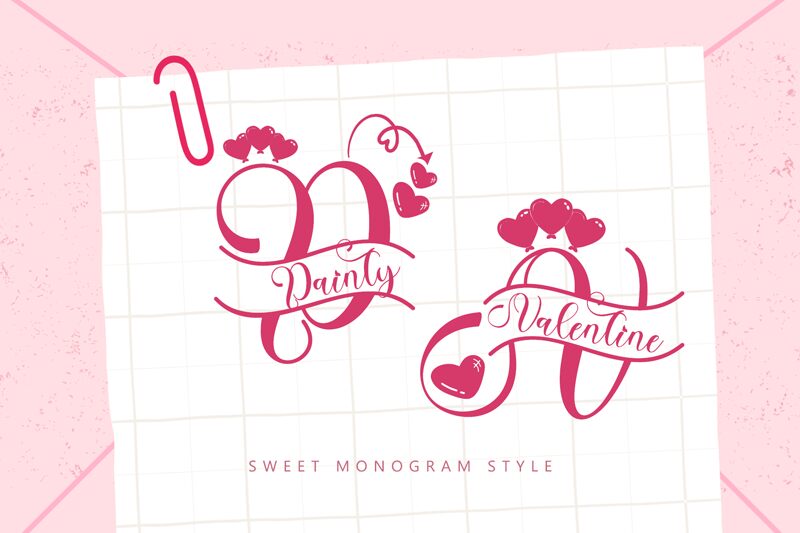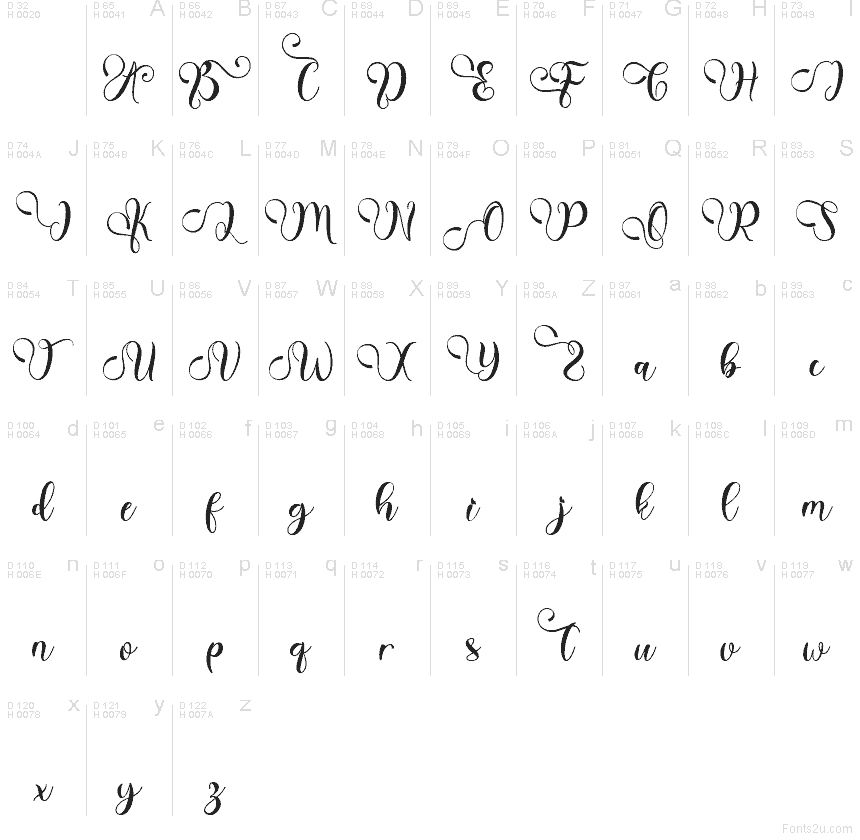
Dainty Valentine
Dainty Valentine font by Yoga Letter is a free holiday calligraphy typeface that wraps every word in a soft, romantic flourish. Loose, looping strokes and airy spacing give it a handwritten feel, like ink brushed across a love note. The swirls are expressive without feeling messy, so your message stays legible while still looking indulgent and special.
Using Dainty Valentine, you can bring warmth to wedding invitations, Valentine’s Day cards, engagement announcements, product packaging, social media quotes, and cozy boutique branding. This free font shines in large headings where its curls can really breathe; pair it with a clean sans serif for body text to keep layouts balanced and easy to read.